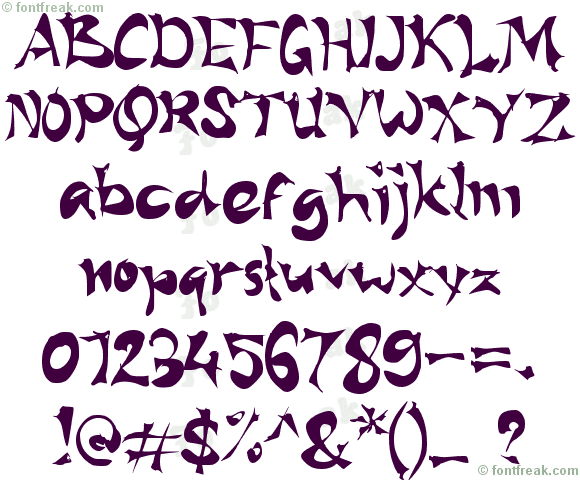
Barusan Lindu
Barusan Lindu, designed by Wahyu Eka Prasetya in 2021, is a striking display font that embodies a unique blend of creativity and elegance. This freeware font features a captivating handwritten style, characterized by its playful strokes and artistic flair. The letters exhibit varying stroke weights, giving them a dynamic appearance that captures attention while maintaining clarity. The contrast between thick and thin lines adds visual interest, making Barusan Lindu an excellent choice for projects that require a touch of personality.
The spacing in this font is well-balanced, ensuring readability without sacrificing its artistic essence. Decorative elements, such as whimsical curls and flourishes, enhance its charm, making it suitable for a range of applications. The Barusan Lindu font is particularly well-suited for wedding invitations, where its romantic style can evoke emotion and beauty. It also shines in event posters, capturing the spirit of celebrations with its lively character. Small business owners can leverage this font for branding materials, such as café menus or boutique signage, as it conveys a friendly and approachable vibe. Content creators looking to add a unique twist to their graphics will find Barusan Lindu ideal for social media posts and promotional materials.
Targeting graphic designers and small business owners, this font offers a fresh alternative to more traditional typefaces. Its distinctiveness and versatility make it a valuable asset for anyone looking to elevate their visual communication. The Barusan Lindu font free download option allows users to incorporate this exceptional typeface into their projects without worrying about licensing fees. In a crowded marketplace of fonts, Barusan Lindu stands out for its artistic personality and practical applications, making it a must-have for those seeking to make a memorable impression.